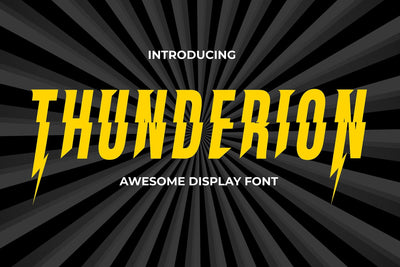
Thunderion - Lightning typeface characters
Thunderion is The ThunderStrike font is a striking display font that captures the electrifying energy of thunderstorms. Each character in this unique typeface is adorned with a dynamic thunder accent, adding a powerful and dramatic effect to your text.